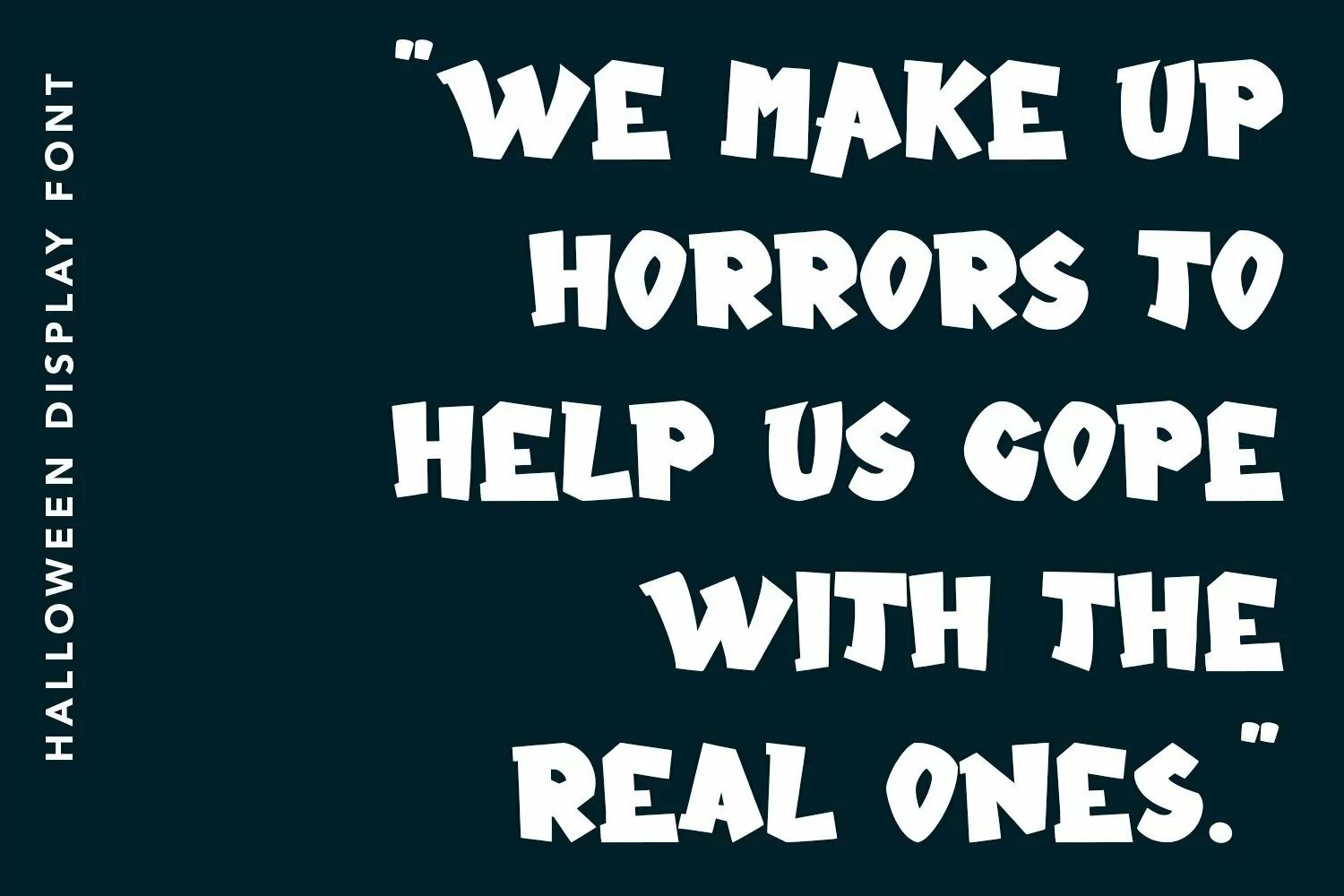
Web Font Vamps Night - Halloween Display Font that contain lowercase, uppercase, symbol, and also support multi language. There’s a lot ligatures in this font. This Font also comes with ligatures, alternates and many more. this font suitable for fashion, branding, catalog and other design what you want.
Vamps Night